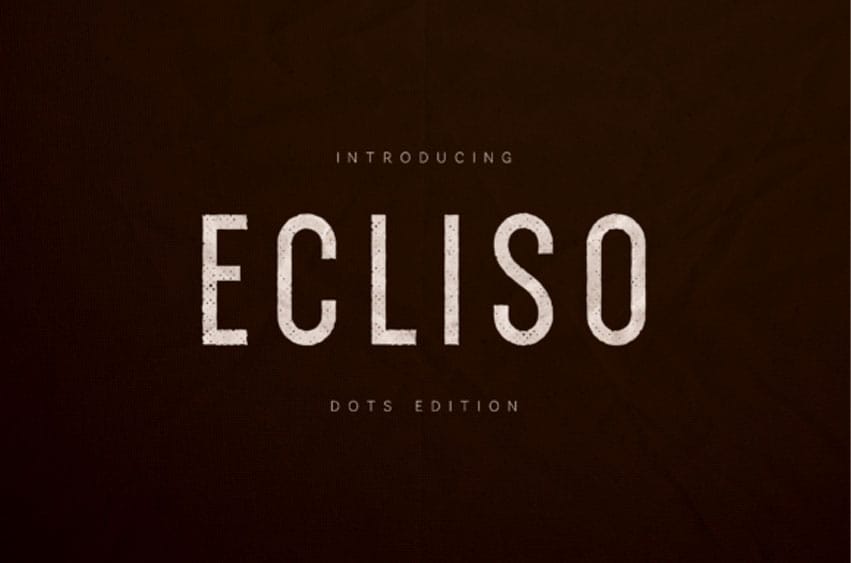
Ecliso Font is a modern textured sans serif font featuring a distinctive dotted grain effect that gives the letterforms a subtle handcrafted character.
Ecliso works beautifully for branding design, logo creation, editorial layouts, posters, magazine titles, packaging design, visual identity systems, social media graphics, modern typography compositions, and creative design projects that require a clean structure with a textured aesthetic.